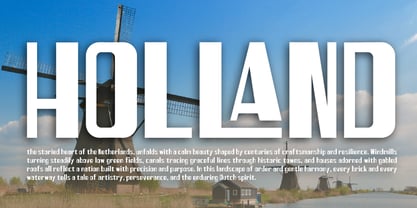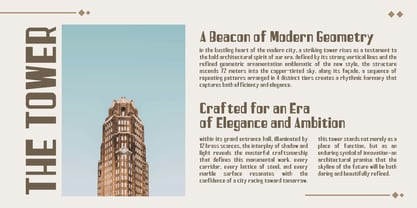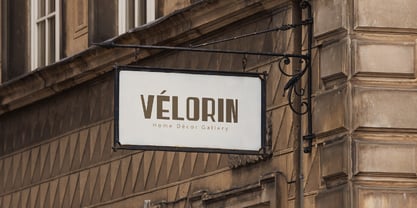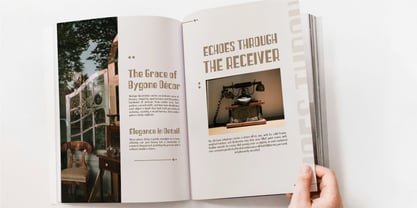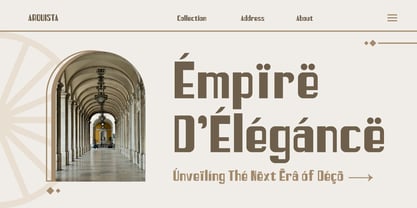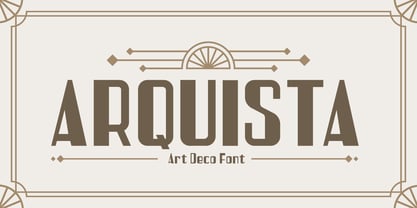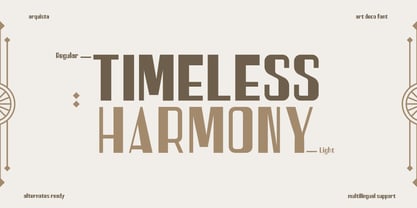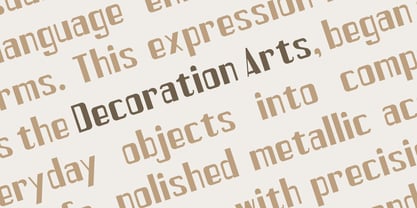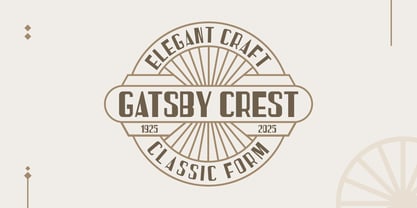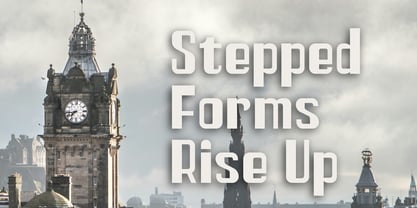
Arquista
by Yohanes Oktav
The Arquista Font Family was designed by Yohanes Oktavianus Aang and published by Yohanes Oktav. Arquista contains 2 styles and family package options. More about this family
Arquista is a bold and striking display typeface that seamlessly blends architectural precision with industrial energy. Its letterforms are rooted in geometric structures, featuring sharp apertures, engineered terminals, and monolinear strokes that evoke a sense of modern construction and technical craftsmanship. Designed specifically for headlines, branding, and impactful visual statements, Arquista delivers a strong, confident voice that commands attention in technology, design, architecture, and industrial-themed projects. With cohesive uppercase and lowercase styles that share a disciplined visual language, Arquista embodies precision, strength, and forward-looking aesthetics, making it ideal for contemporary identity systems, posters, signage, and editorial display use. This versatile typeface is perfect for creating memorable branding experiences and engaging visual content across various media.